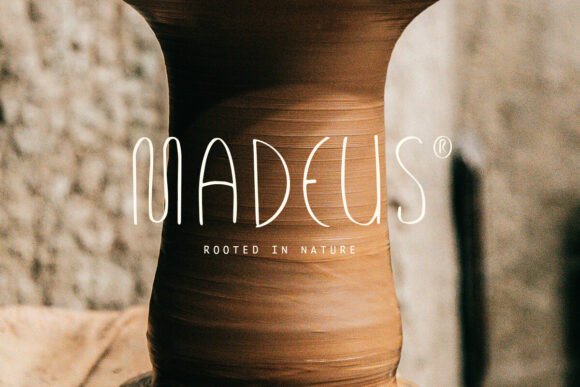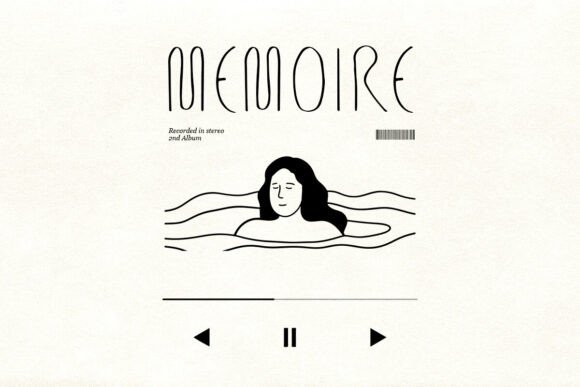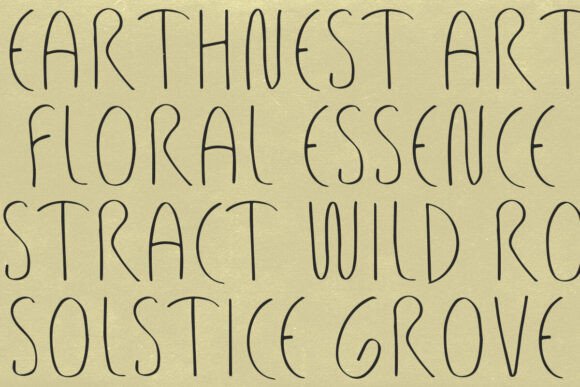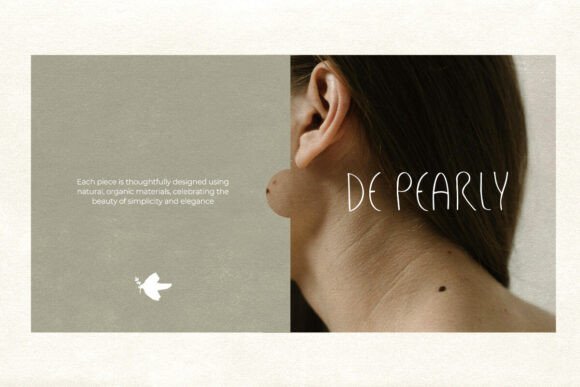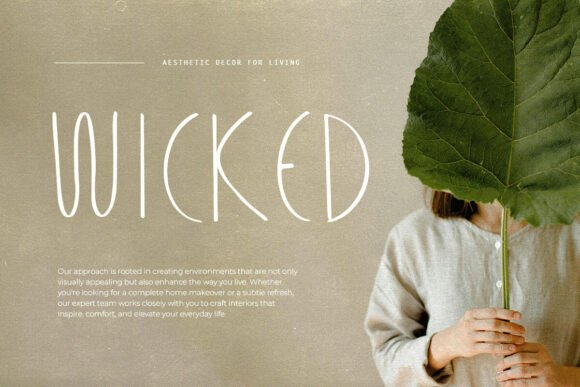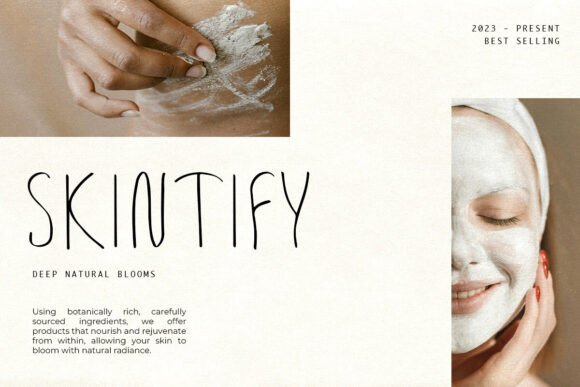
Introduction to Lovlar Font
Have you ever stumbled upon a font that perfectly captures the essence of your creative vision? For many designers, that ‘aha’ moment is what makes all the difference between a good design and a great one. For us, that moment came when we discovered Lovlar Font – a beautifully crafted sans serif handwritten font that embodies the organic simplicity we all crave.
As a valuable resource for designers, Lovlar Font offers a unique blend of high quality and effortless elegance. With its clean lines and natural flow, this font is perfect for brands that prioritize authenticity, sustainability, and handcrafted charm. Whether you’re working on a creative project or simply need a striking font for your next design, Lovlar Font is a game-changer – and the best part? It’s available for free download, complete with a transparent background that makes it easy to customize.
From bold headings to logos and branding, Lovlar Font is an ideal choice for designers who demand a refined aesthetic that’s both striking and sophisticated. In this article, we’ll dive deeper into the world of Lovlar Font and explore what makes it a must-have design resource for any creative project.
Key Features of Lovlar Font
- Unique characteristics include a modern, elegant aesthetic and a wide range of stylistic alternates.
Honest Review: Lovlar Font
As a designer, I’m always on the lookout for high-quality design resources that can elevate my creative project. Recently, I came across the Lovlar Font, and I’m excited to share my honest review.
What works well: ✨ The Lovlar Font has a beautiful, modern design that’s perfect for a wide range of creative projects. The font is highly legible and comes in a variety of weights and styles, making it versatile and easy to use.
- Wide range of weights and styles to choose from
- Transparent background, making it easy to layer with other design elements
Overall, I’m impressed with the Lovlar Font’s design and versatility. It’s a great addition to any designer’s toolkit, and I’d definitely recommend it for any creative project. Just be aware of the website’s limitations, and you’ll be all set!
The Lovlar Font is ideal for a variety of projects, including:
– Branding and marketing materials
– Digital graphics and illustrations
– Print materials, such as business cards and brochures
– Web design and development
Is the Lovlar Font suitable for large-scale designs?
Yes, the Lovlar Font is designed to be scalable, making it suitable for use in various design contexts, from small-scale creative projects to large-scale designs such as billboards and signage. Its high-quality design ensures that it remains legible and visually appealing even at large sizes.